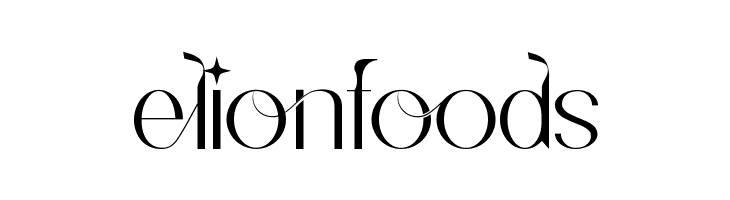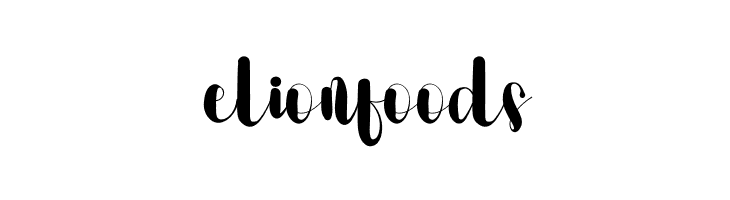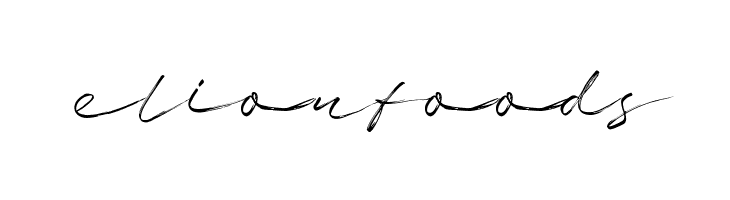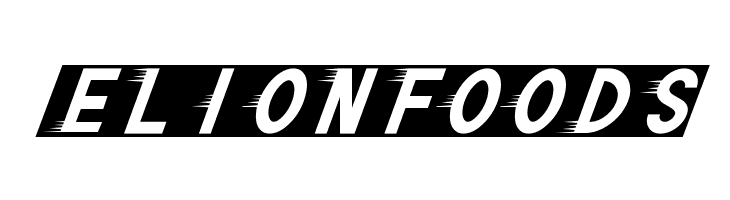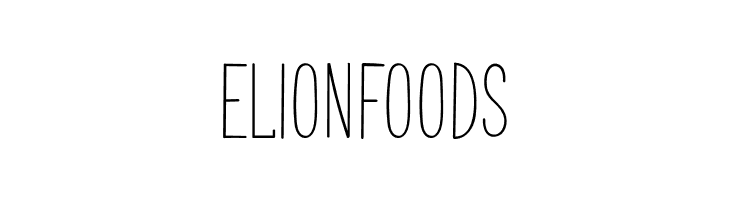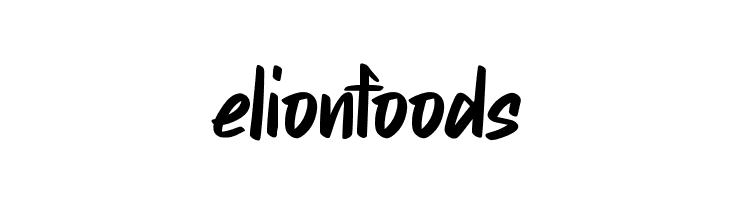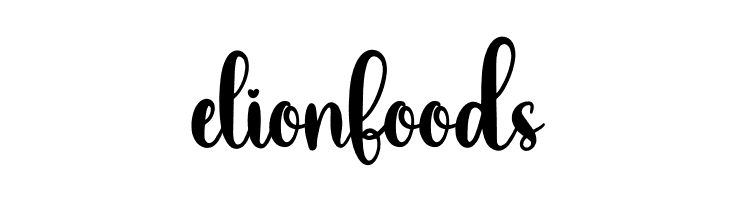
A tall, narrow, and modern font with clean lines and minimal embellishments.
A tall, narrow font with clean lines and a modern aesthetic.
A playful, handwritten font with a whimsical and dynamic style.
Playful handwritten script font.
A modern, high-contrast font with elegant, elongated letterforms and decorative flourishes.
A bold, expressive script font with elegant, flowing strokes and high contrast.
A fluid, elegant script font with a natural handwritten style.
A bold, handwritten font with a dynamic and energetic style.
A bold, italicized font with dynamic slashes, conveying speed and energy.
A bold, playful font with thick, rounded characters and a retro-modern style.